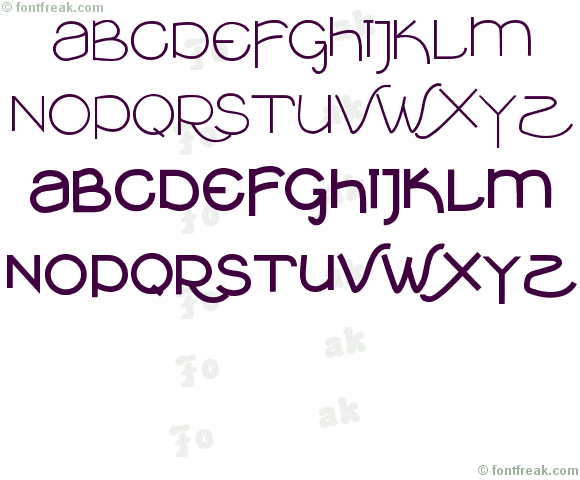
VTKS clean
About VTKS clean
VTKS Clean, designed by Douglas Vitkauskas, is a versatile sans-serif font that exemplifies modern minimalism. Characterized by its smooth lines and geometric forms, this font presents a balanced stroke weight that enhances readability while maintaining a contemporary aesthetic. The uniformity in its letter spacing contributes to a clean and organized appearance, making it a perfect choice for various design needs.
This font is particularly well-suited for use cases such as branding for startups, where clarity and professionalism are key. Its sleek design also makes it an excellent choice for restaurant menus, allowing for easy reading while conveying a modern vibe. Additionally, VTKS Clean can elevate the look of wedding invitations, providing a stylish yet understated elegance. It shines in digital formats, making it ideal for social media graphics that require a clean and polished look. Content creators will find VTKS Clean beneficial for presentations, as it brings a contemporary touch that captures attention without being distracting.
What sets VTKS Clean apart is its ability to blend simplicity with sophistication. This font offers a refreshing alternative to more ornate styles, making it an ideal choice for those looking to communicate effectively while still making a visual impact. Whether you are crafting a logo, designing a flyer, or preparing digital content, the VTKS Clean font free download ensures you have a reliable and stylish option at your fingertips.